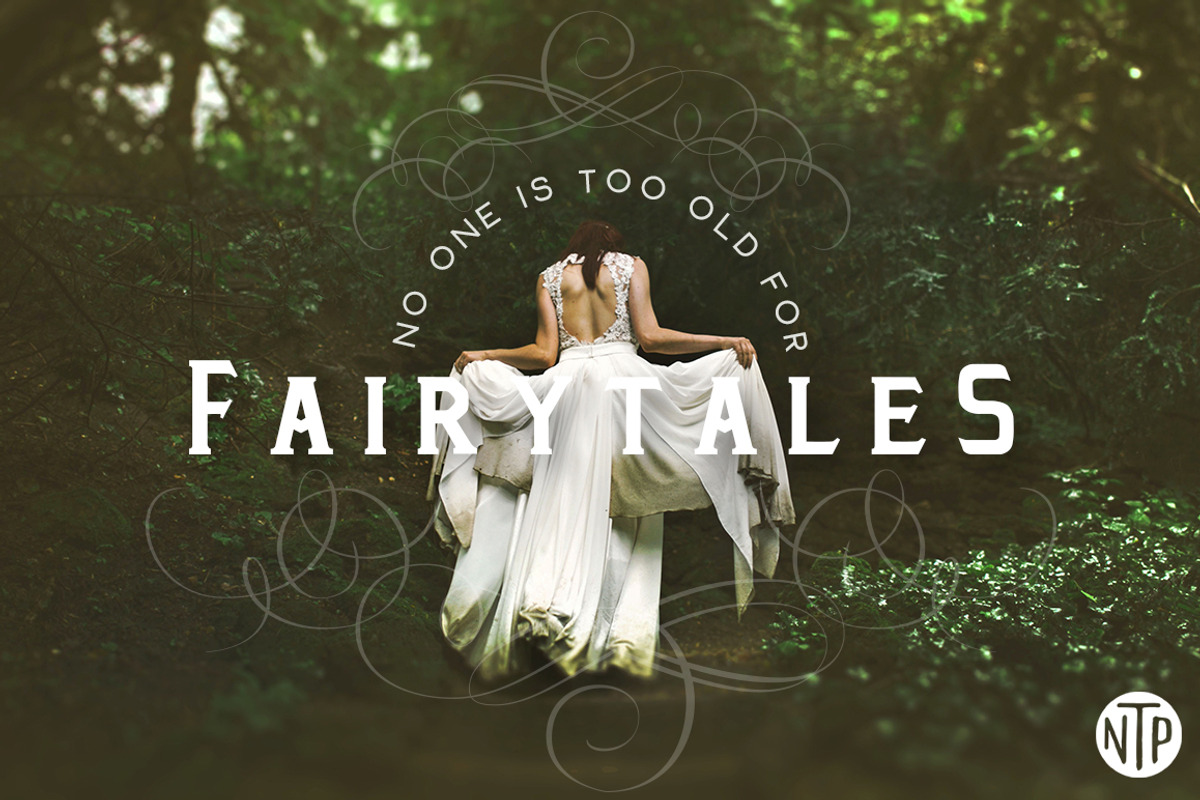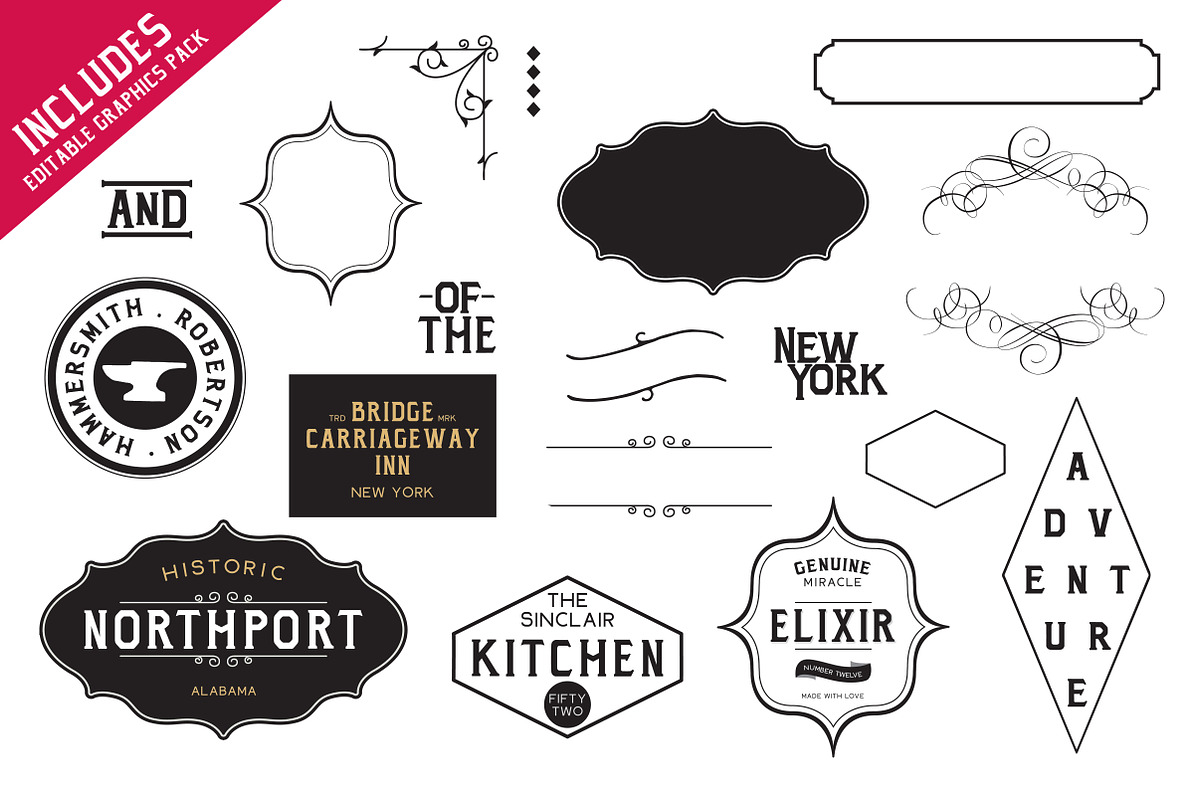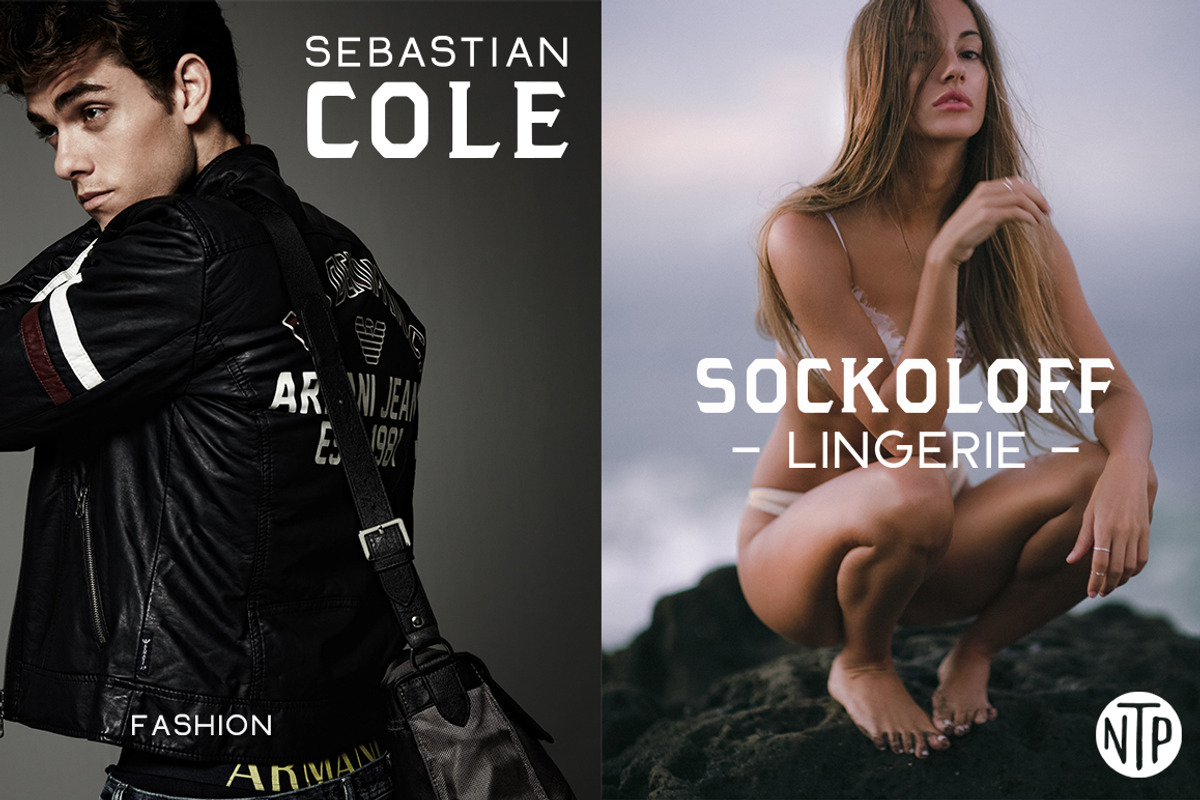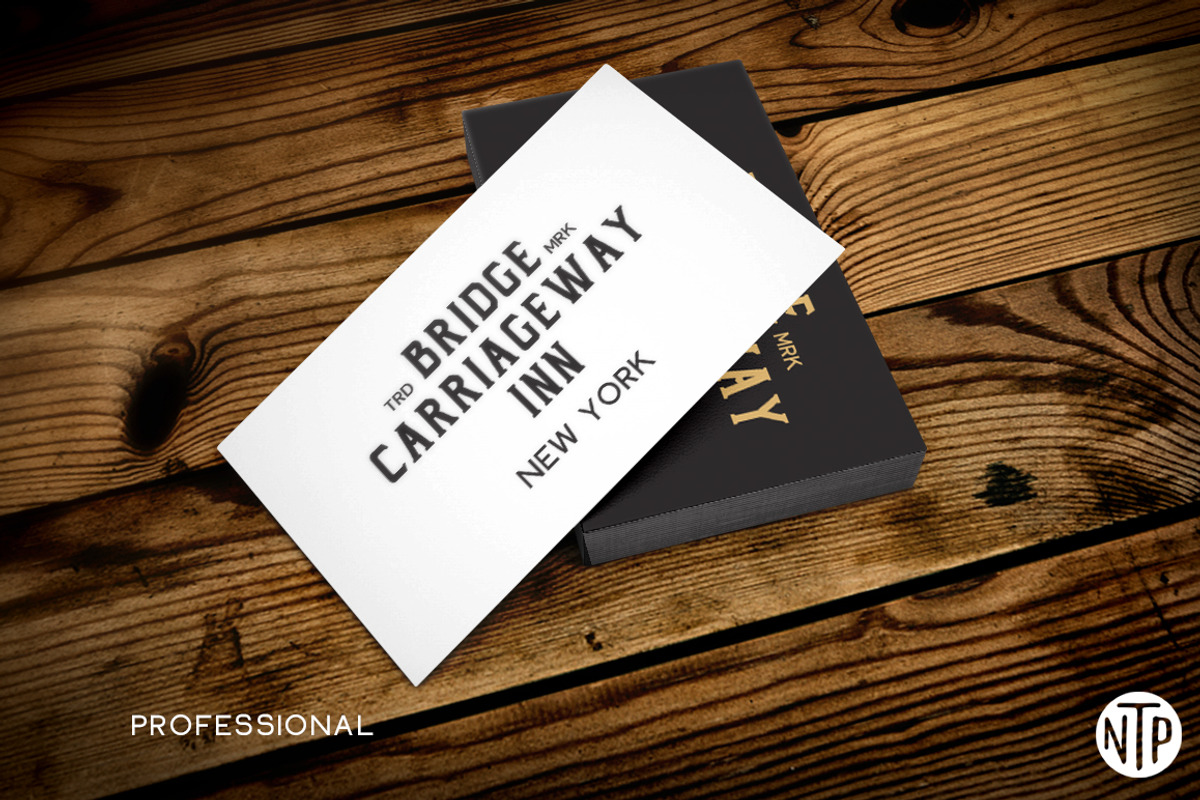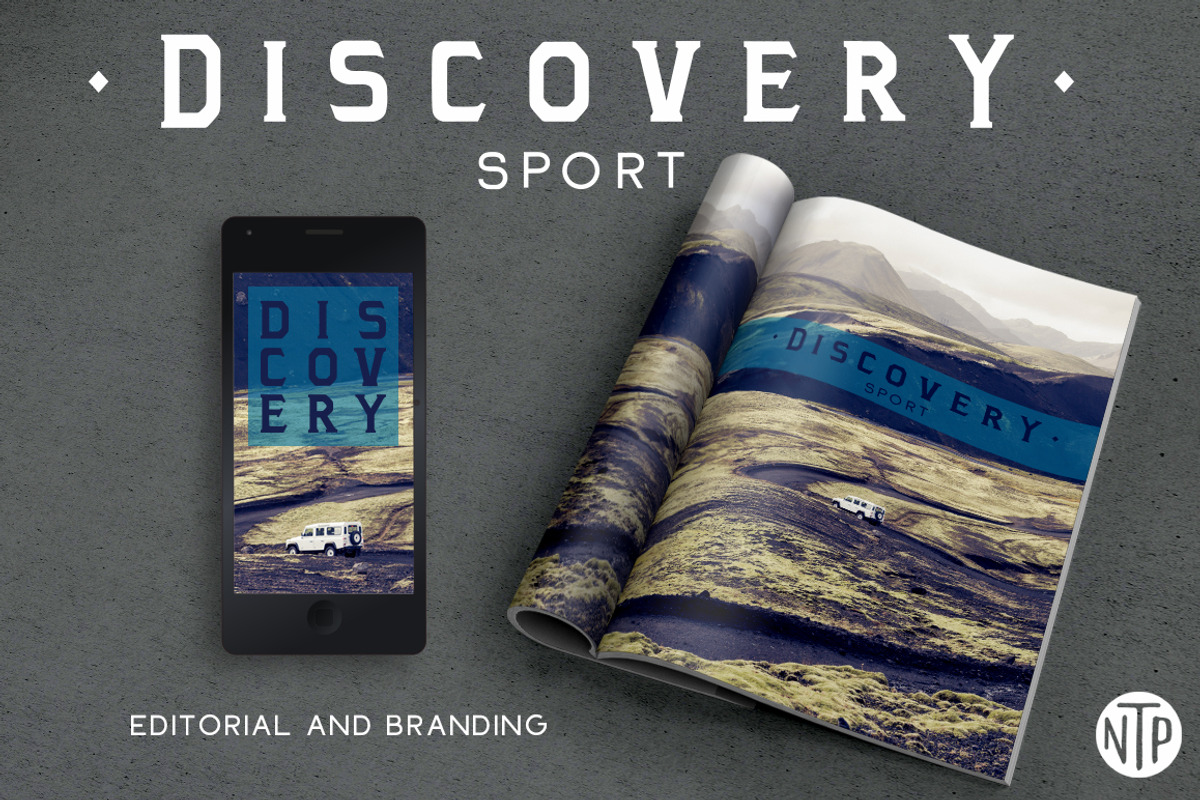
Castleton Font Duo
Castleton Font Duo by Neil Tony Porter is a font selected for branding, posters, packaging, typography.
Why Castleton Font Duo is worth a look
Castleton Font Duo by Neil Tony Porter fits naturally into Branding, posters, packaging, typography.